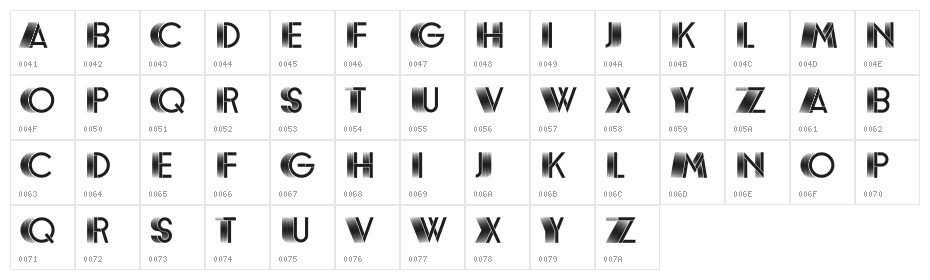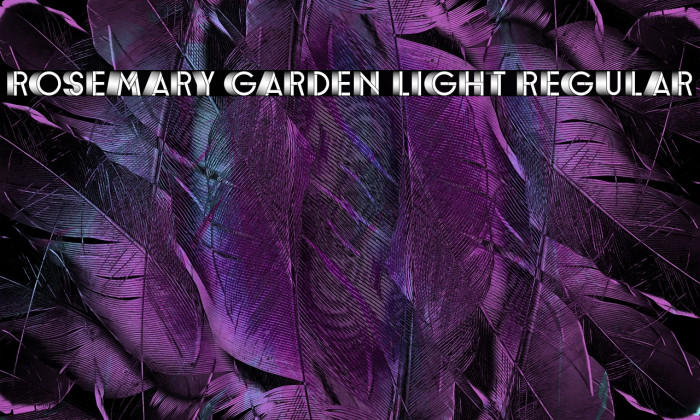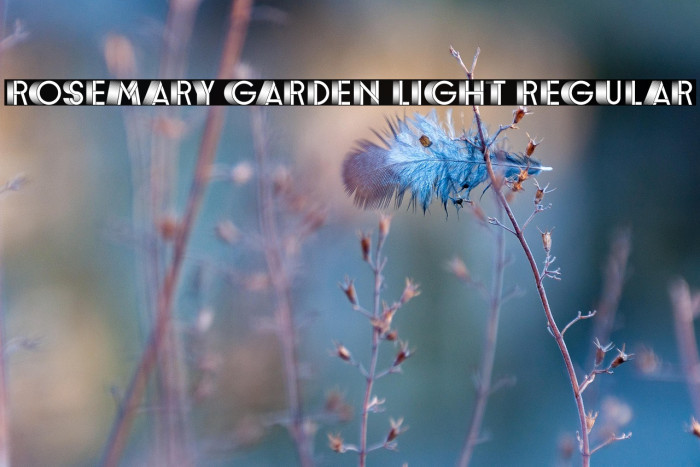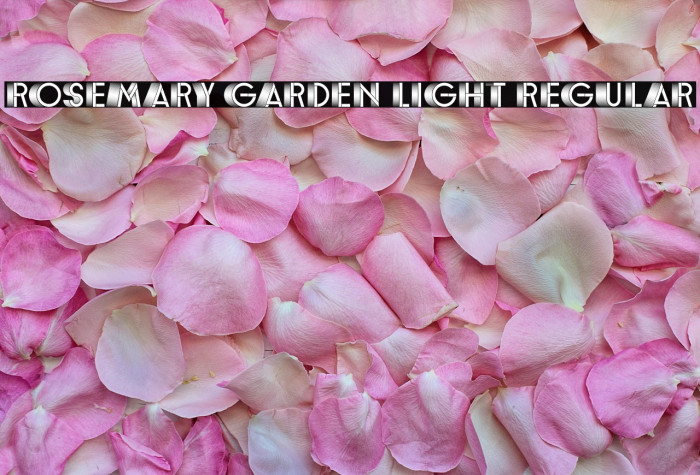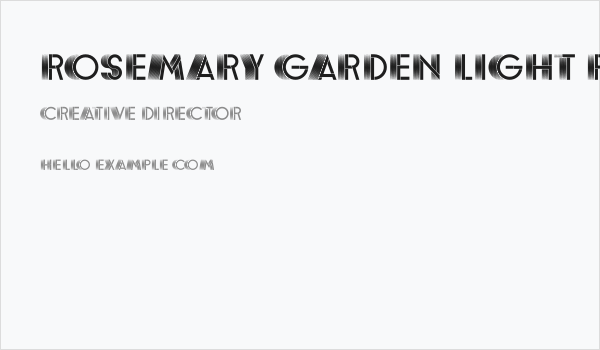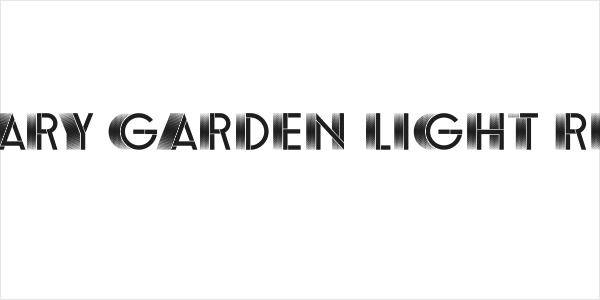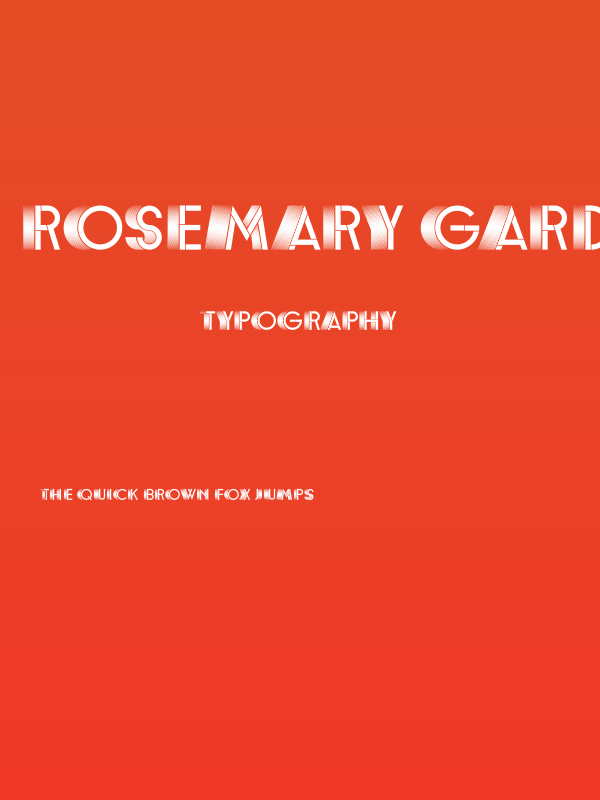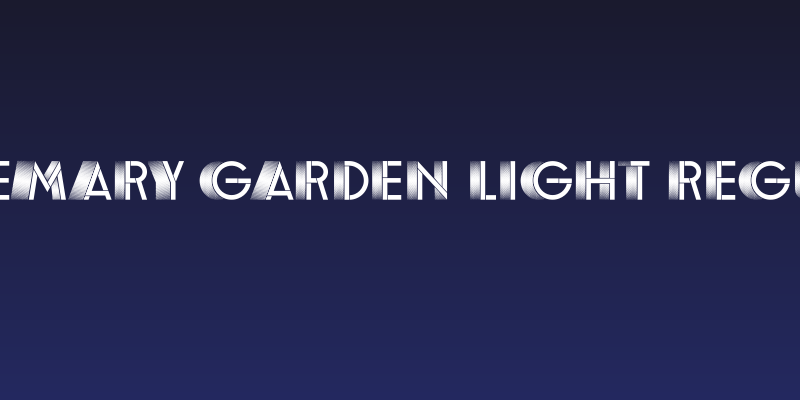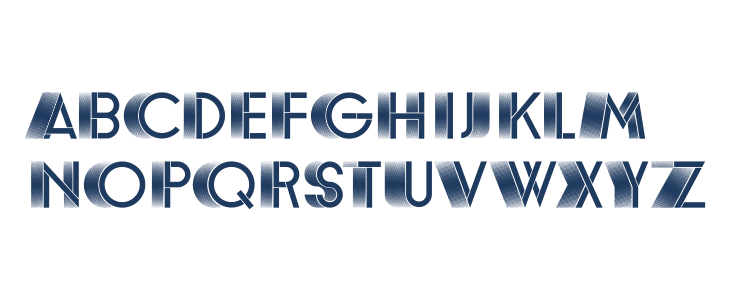
Rosemary Garden Light Regular Font
Rosemary Garden Light Regular Description
This font features a bold, geometric design with a distinct gradient effect that transitions from solid black to a lighter shade, creating a striking visual impact. The characters are uppercase, with a modern and artistic flair, making them suitable for eye-catching designs. The sharp angles and clean lines give it a contemporary feel, while the gradient adds depth and dimension. The font's style is both unique and versatile, ideal for projects that require a bold statement.